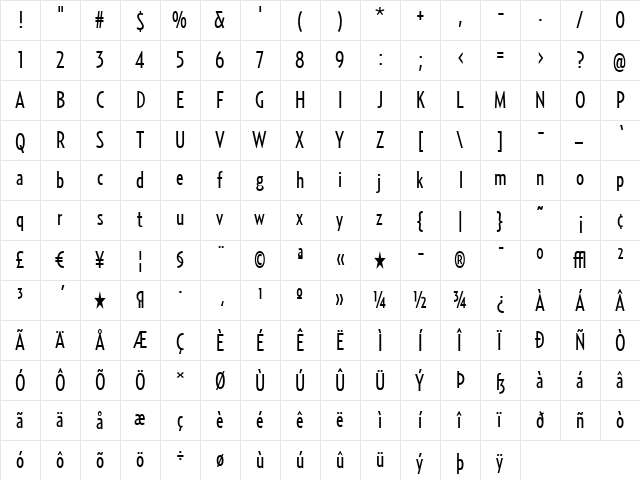
RelayComp-Regular Regular
| Designer | Cyrus Highsmith |
Design Context for RelayComp-Regular Typeface
RelayComp-Regular is a composed and adaptable typeface that performs quietly and consistently across a wide range of design contexts.
Pro Tip: Pair RelayComp-Regular with a font of contrasting weight or personality to build a more expressive typographic hierarchy.